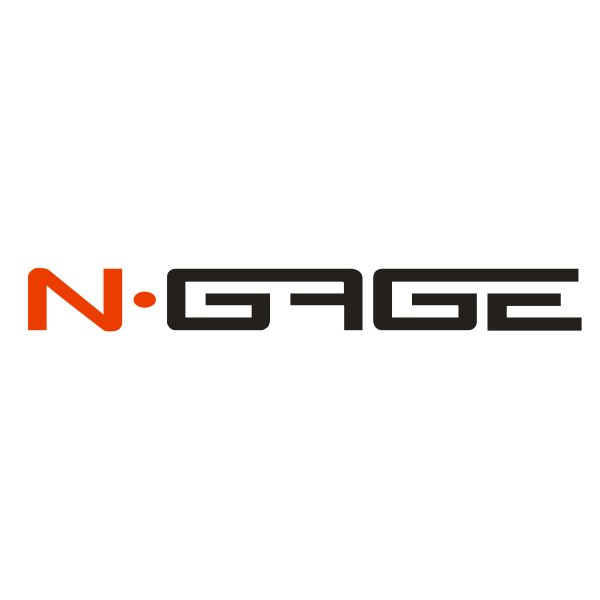
N-Gage Font
Company & ConsolesN-Gage was a mobile gaming platform created by Nokia in 2003. It featured a unique design where the phone could be slid open to reveal gaming buttons.